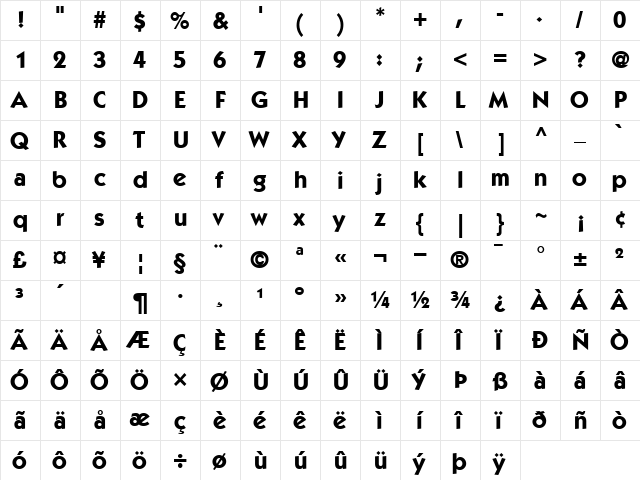
ItcKabel Bold Font Preview
ItcKabel Bold
Design Context for ItcKabel Typeface
ItcKabel is a composed and adaptable typeface that performs quietly and consistently across a wide range of design contexts. Its bold stroke weight gives it real presence on the page.
Pro Tip: Pair ItcKabel with a font of contrasting weight or personality to build a more expressive typographic hierarchy.